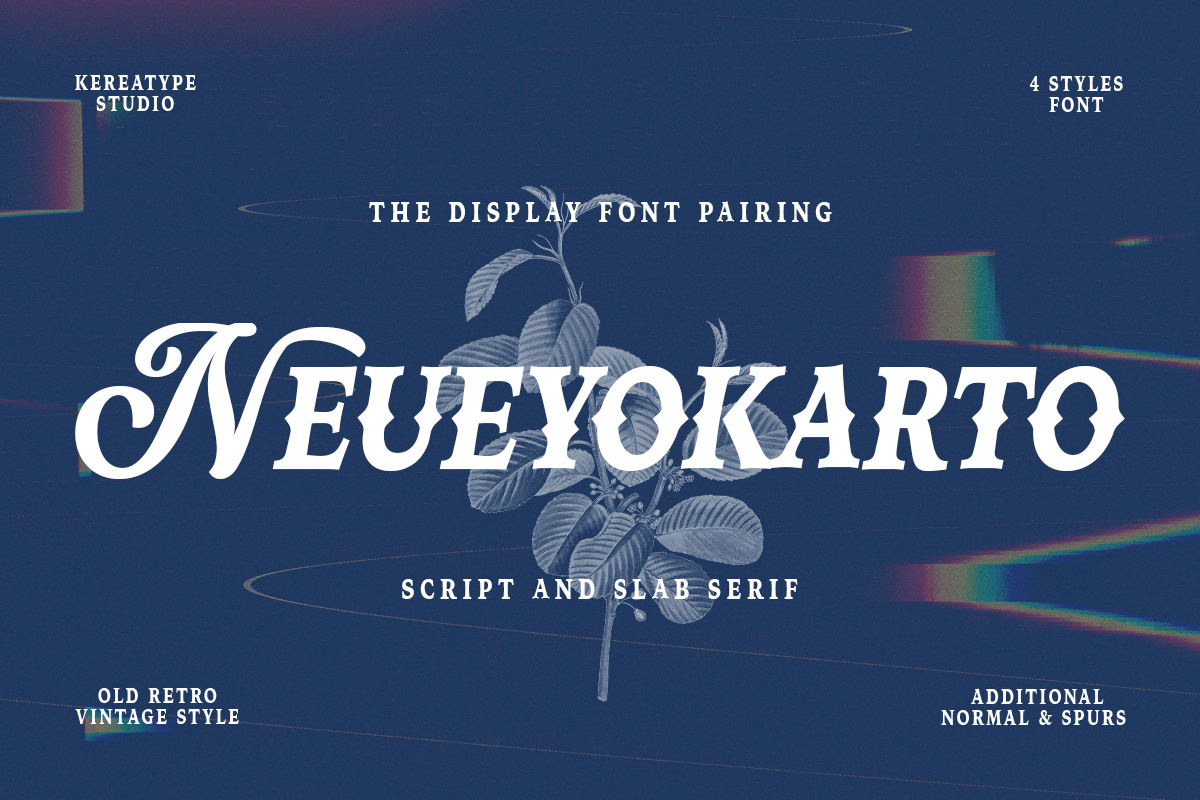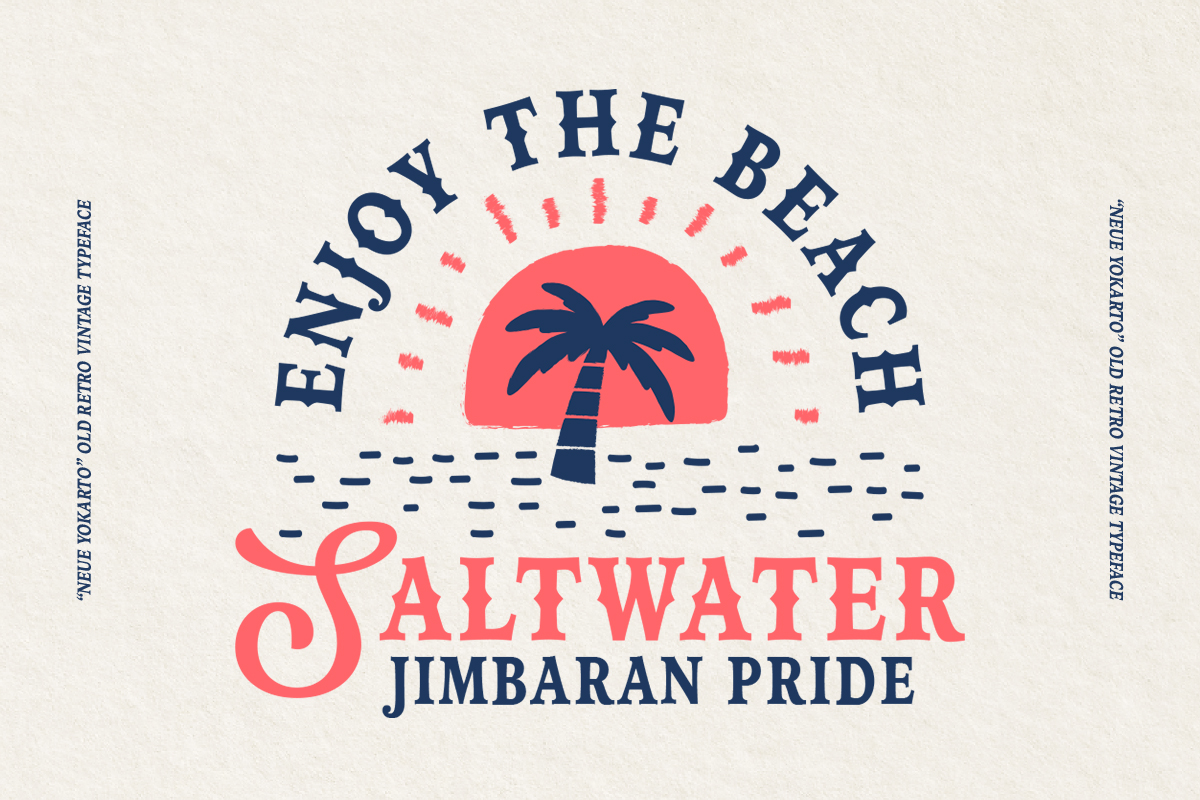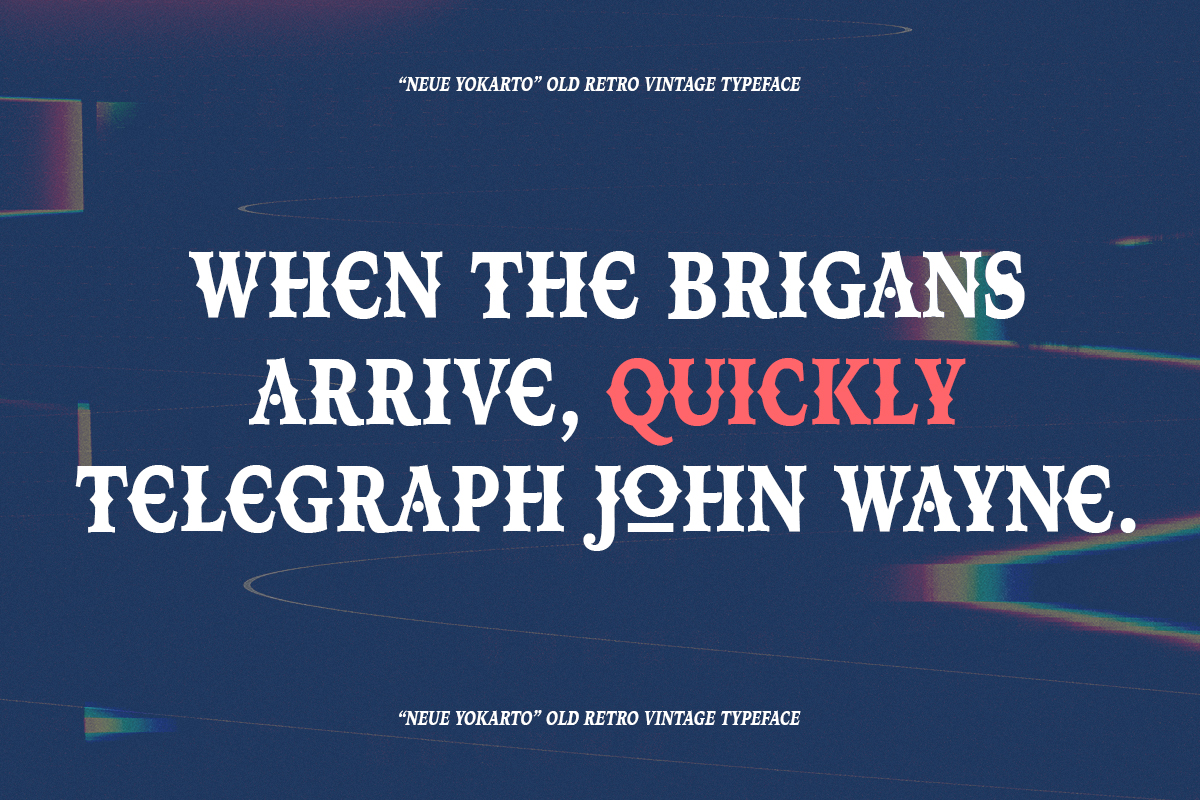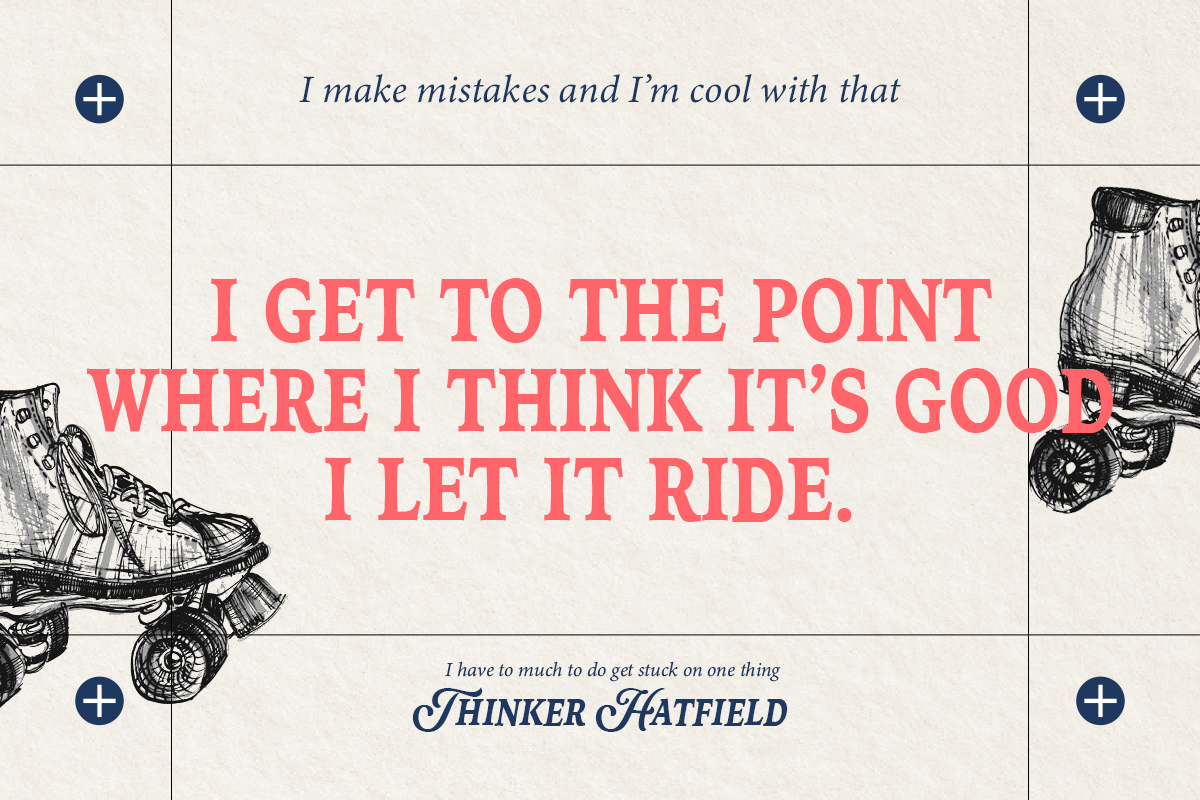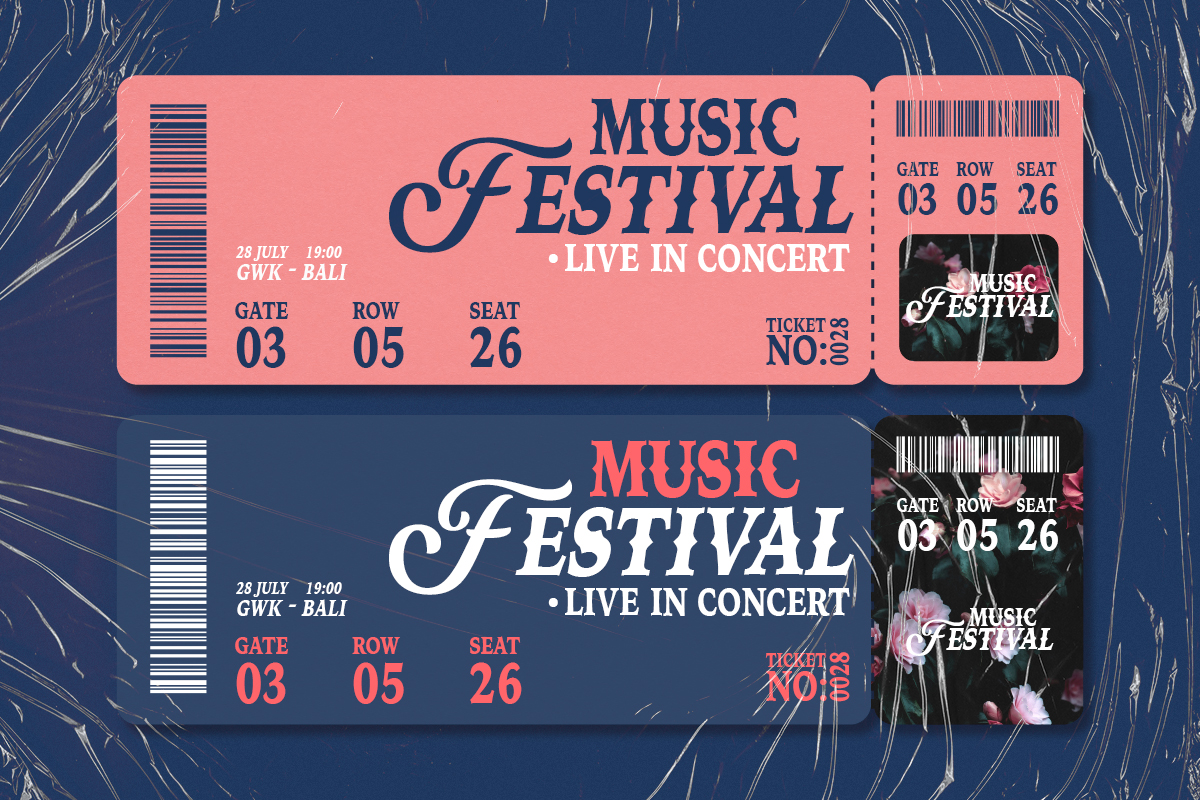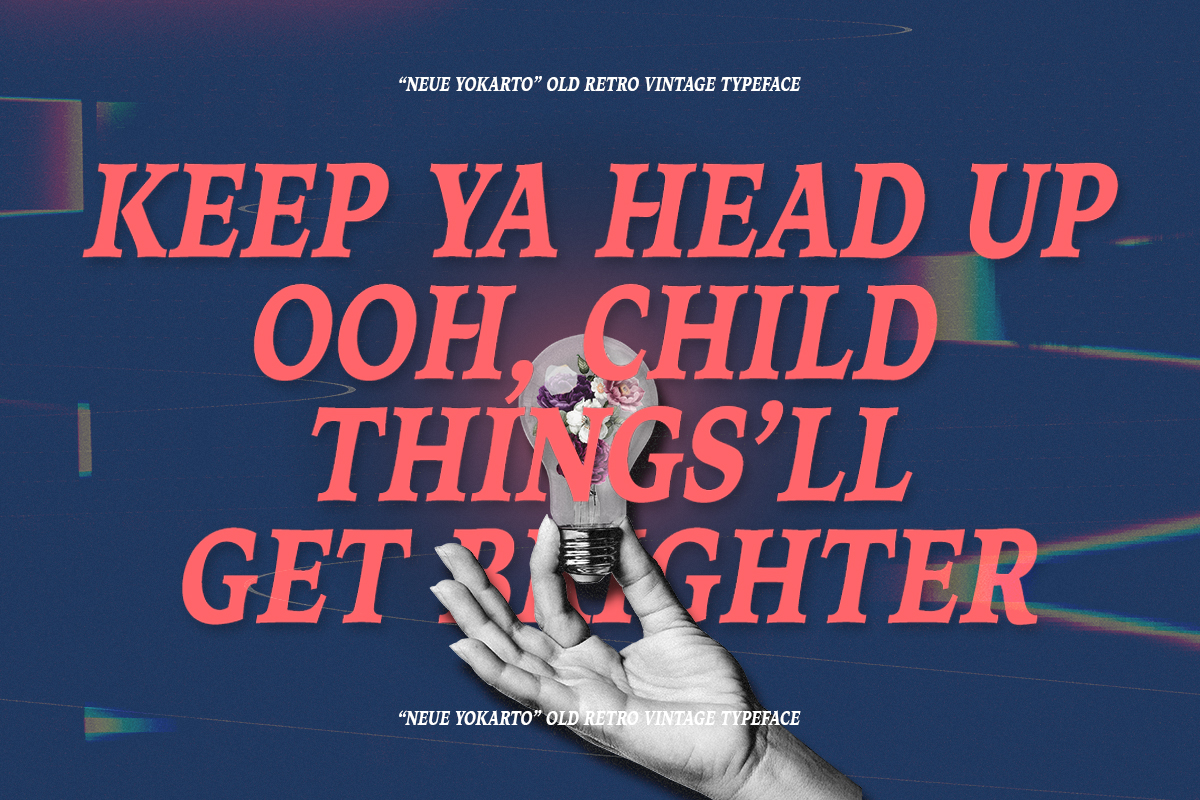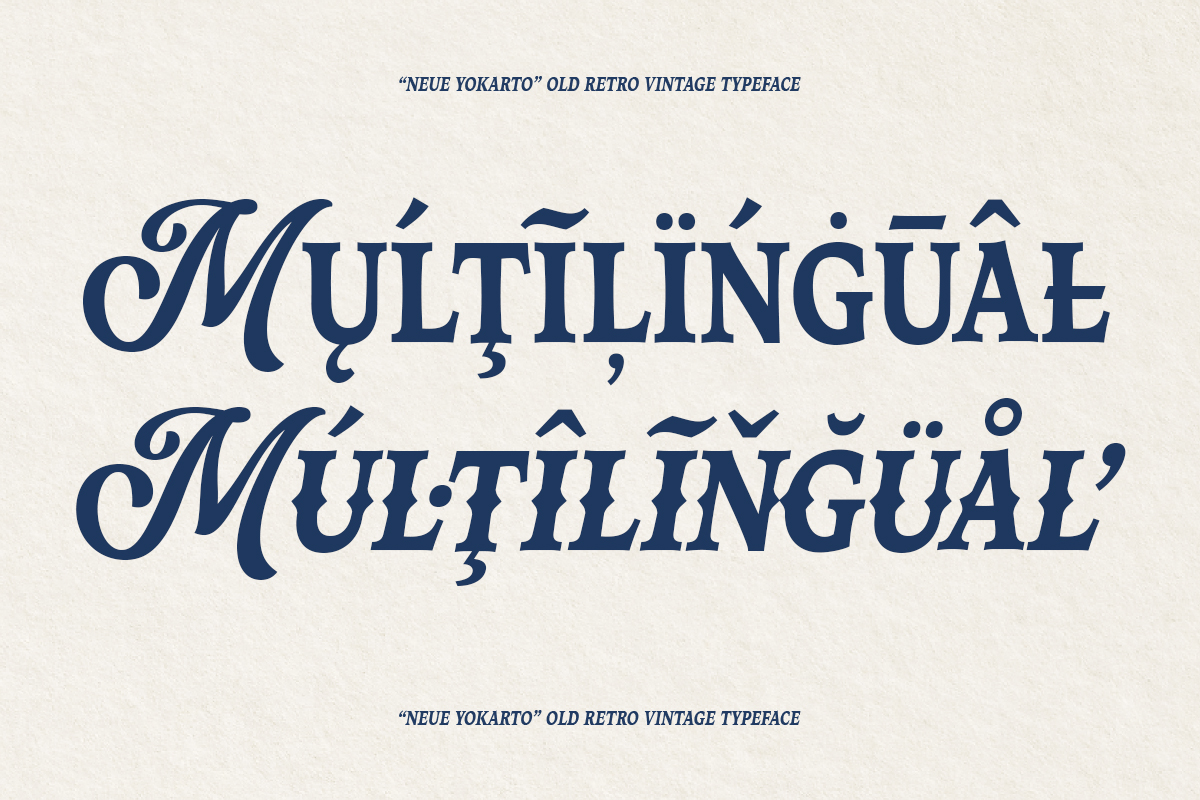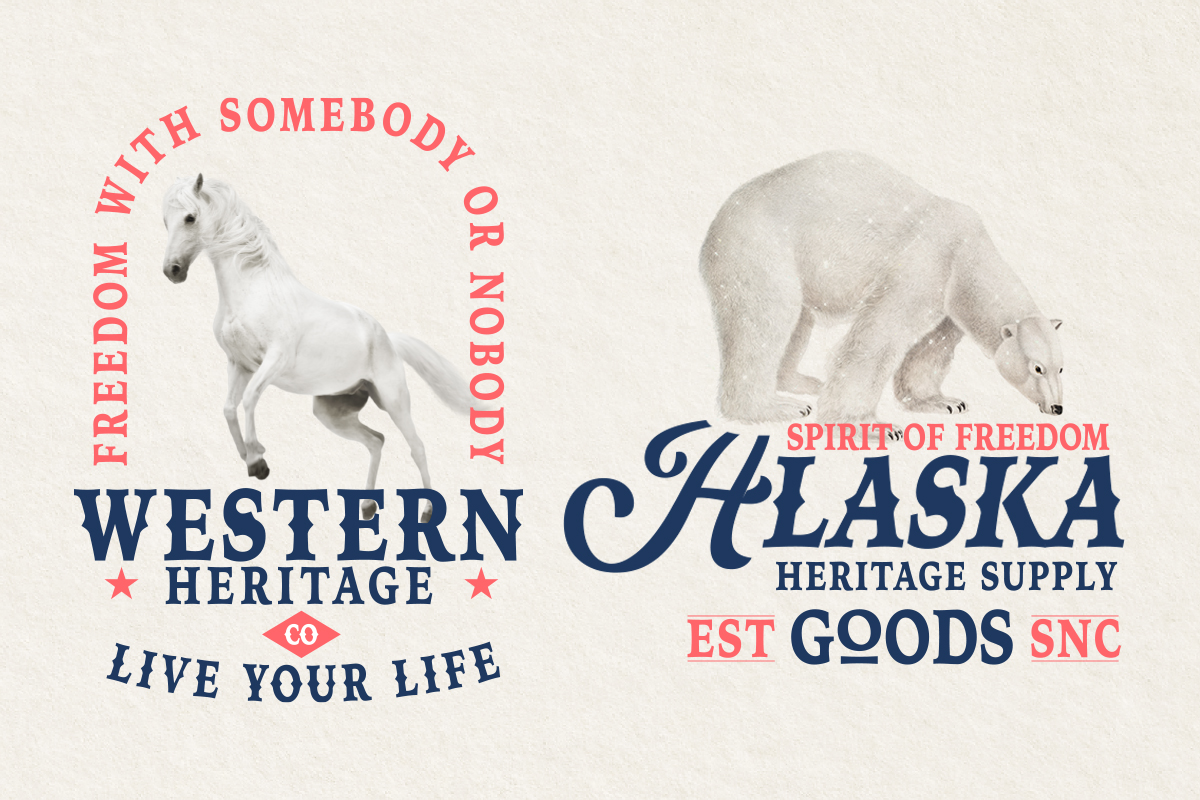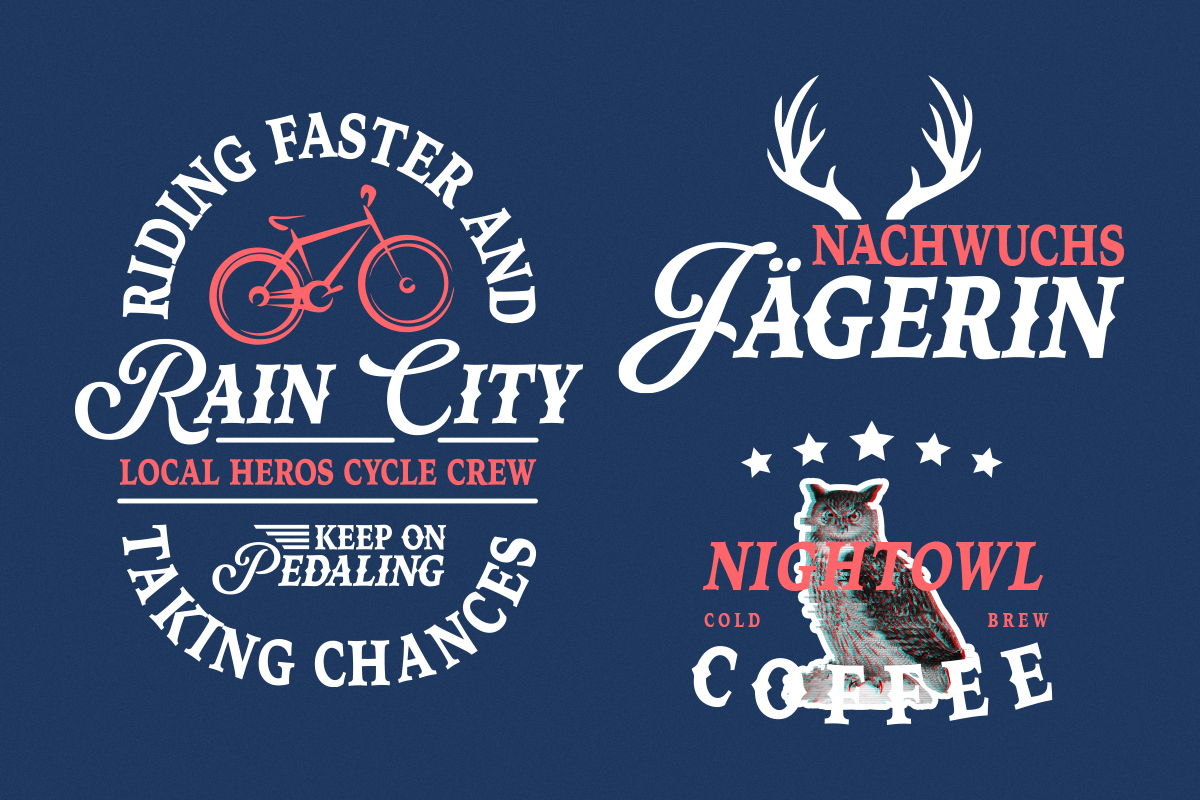
Neue Yokarto
Ornamental Vintage Script and Slab Duo.
Neue Yokarto is a masterful vintage-inspired font pairing that marries a bold, flowing script with a rugged Slab Serif. Inspired by the golden age of sign painting and classic whiskey labels, this collection features distinctive “Normal” and “Spur” effects alongside ornamental alternates and swashes. Meticulously crafted with a highly decorative taste, it captures the nostalgic essence of vintage signage and hand-crafted graphics. Whether for artisan packaging, barbershop branding, or standout posters, Neue Yokarto provides the creative tools needed to craft timeless, unforgettable designs with a professional retro edge.